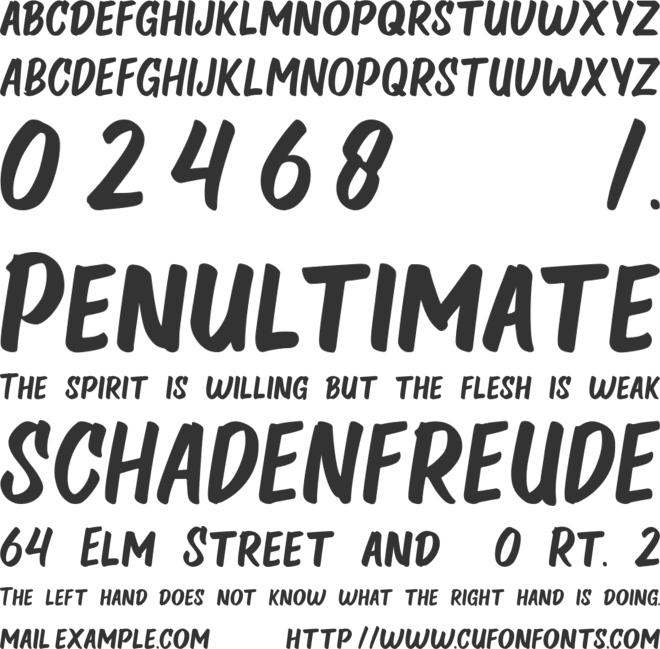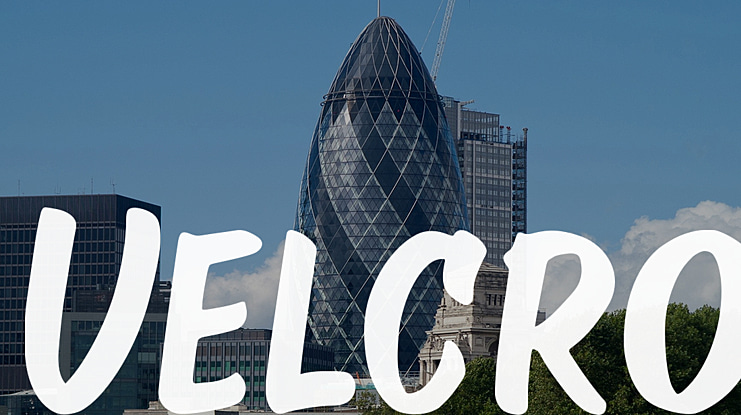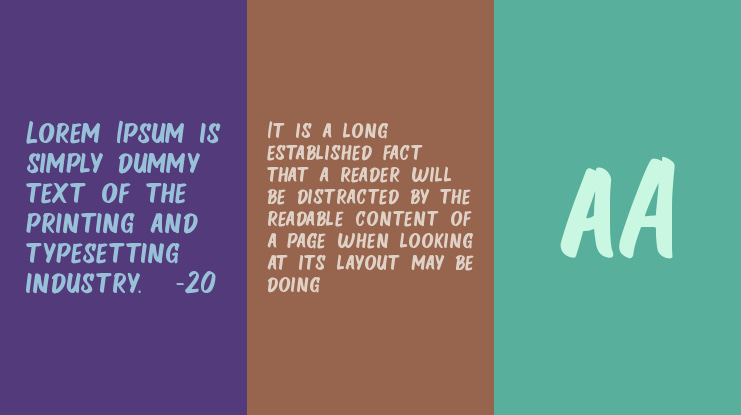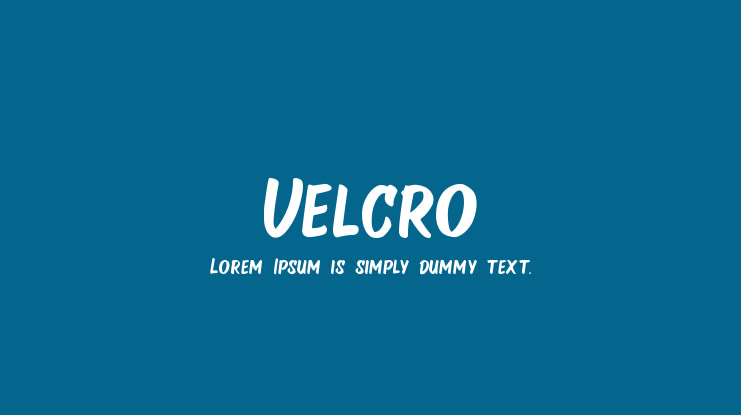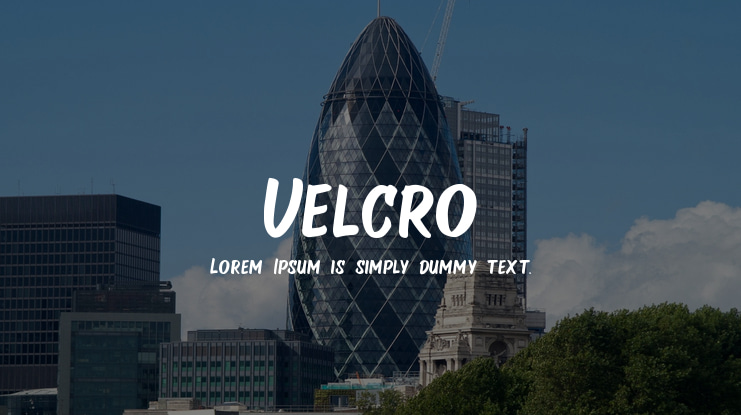
Velcro Font
Lukman Hidayat
Velcro is a font with brush lettering style. Original handwriting with curves that are different from each character. Perfect for various design purposes such as posters, quote, packaging, merchandise and more. Strong for retro or vintage designs.